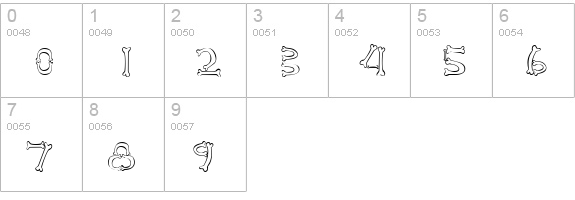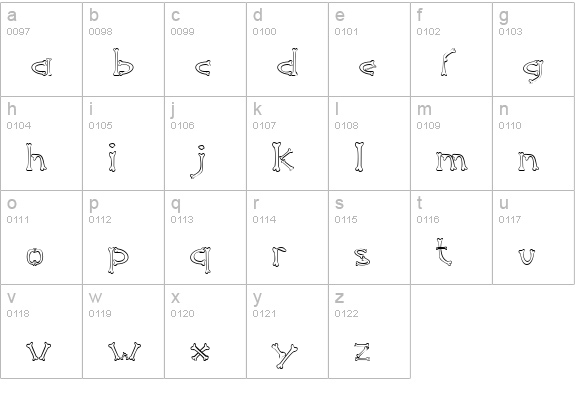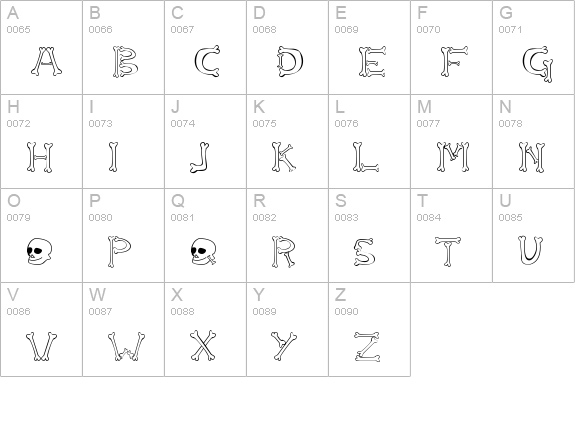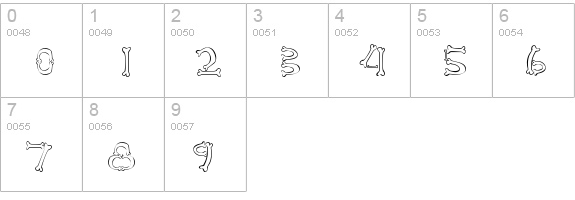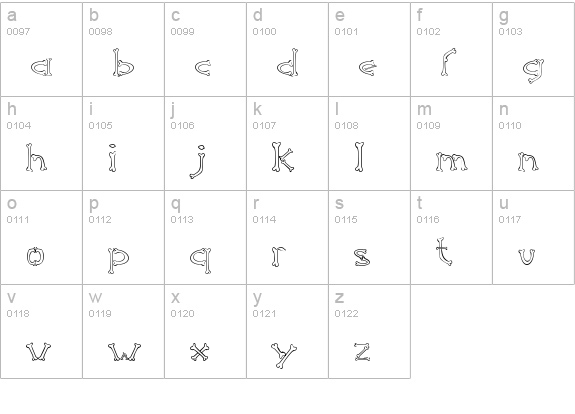
Osselets Font Details
Osselets font is a stunning display typeface that exudes elegance and sophistication. With its sleek lines and modern design, this font is perfect for adding a touch of class to your projects. Its unique letterforms make it stand out from the crowd, while still maintaining a sense of timelessness. Whether you're designing a logo, creating a poster, or working on a branding project, Osselets font is sure to make a statement. Best of all, Osselets font is completely free to download at FontsMarket.com. This means you can easily add this beautiful typeface to your font collection without breaking the bank. Don't miss out on the opportunity to enhance your designs with Osselets font today!